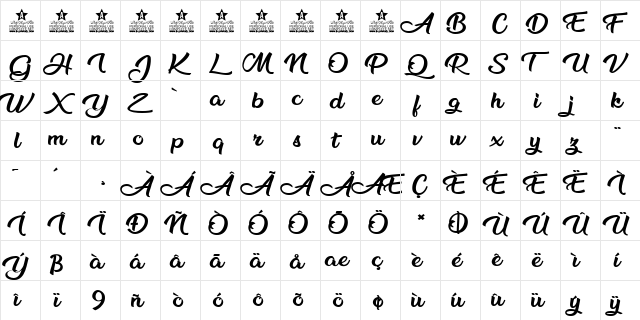
Blackberry Jam Personal Use Regular
| Foundry | Billy Argel |
| Designer | Billy argel |
Design Context for Blackberry Jam Personal Use Typeface
Blackberry Jam Personal Use is a composed and adaptable typeface that performs quietly and consistently across a wide range of design contexts.